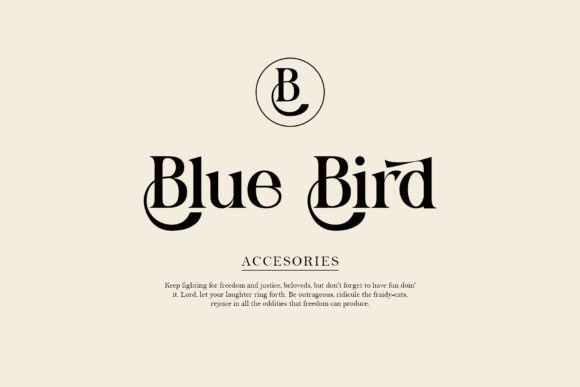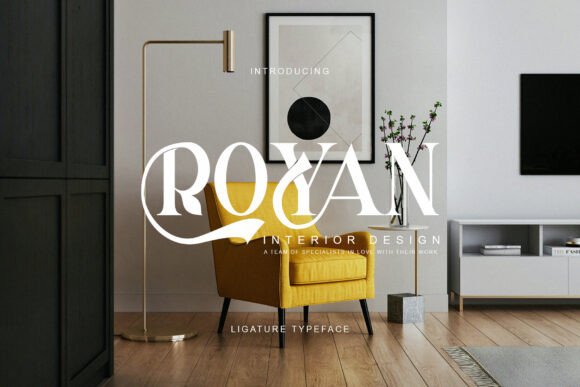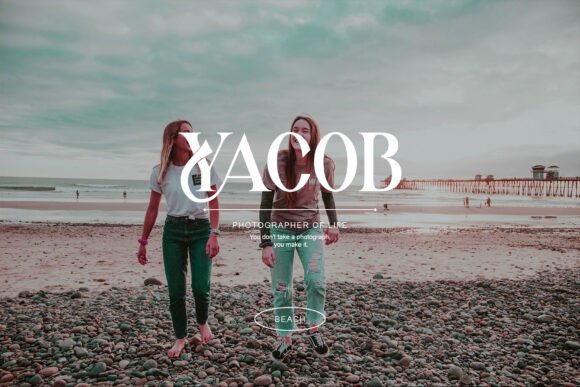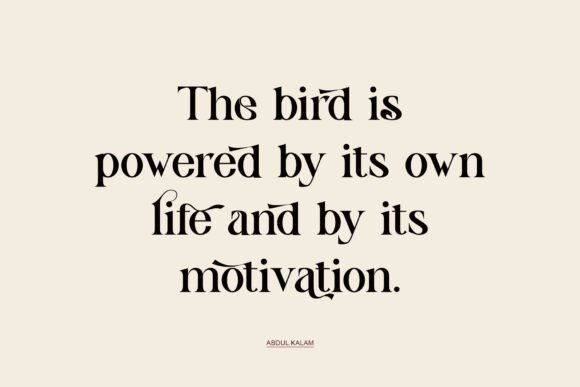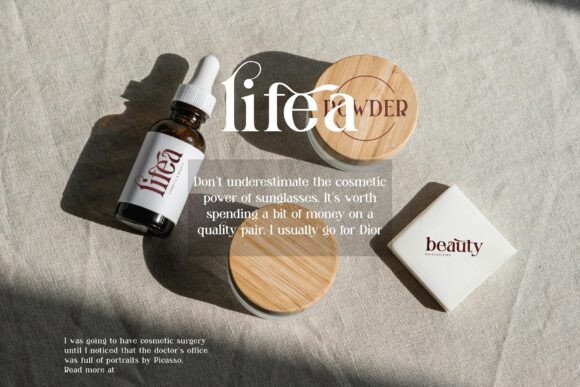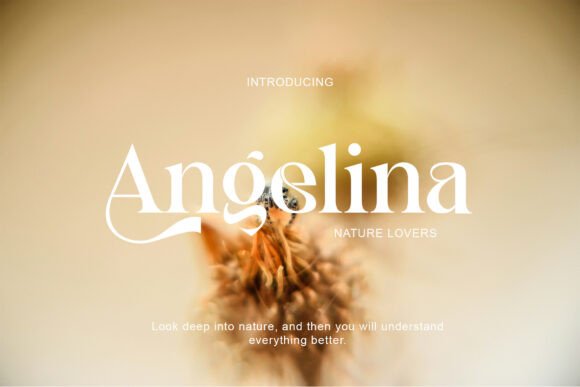
Introducing Blingh Font: Elevate Your Designs with Elegance and Class
In the world of typography, finding the perfect font that embodies both modernity and nostalgia can be a daunting task. However, for designers and crafters seeking a touch of elegance, stylishness, class, chic, and modernity in their creations, look no further than the Blingh Font. This exquisite serif typeface is meticulously designed to bring a sophisticated flair to any design project, making it an indispensable asset for professionals and hobbyists alike.
Blingh Font: A Perfect Blend of Modern and Nostalgic
Blingh Font stands out in the realm of typography due to its unique blend of modern and nostalgic elements. Its elegant and classy serif design ensures that it not only resonates with contemporary design trends but also pays homage to the timeless beauty of traditional typography. This versatility makes Blingh an excellent choice for a wide range of applications, from logos and magazines to social media graphics.
Designed for Versatility
One of the key advantages of Blingh Font is its versatility. It is already matched up and ready to be used together for your next design project, saving you time and effort in selecting complementary fonts. Whether you’re working on a logo that requires a distinctive yet approachable feel, a magazine that demands readability and sophistication, or social media content that needs to stand out in a crowded digital landscape, Blingh Font is up to the task.
Who is Blingh Font for?
Blingh Font is specifically created for individuals who need a touch of elegance, stylishness, class, chic, and modernity in their designs. This includes:
- Graphic Designers: Professionals looking for a reliable, high-quality font that can elevate their projects.
- Content Creators: Bloggers, social media influencers, and marketers seeking to enhance the visual appeal of their content.
- Crafters: DIY enthusiasts and crafters who want to add a professional touch to their handmade products and branding.
- Small Business Owners: Entrepreneurs aiming to establish a strong brand identity through distinctive and memorable typography.
Key Features of Blingh Font
Blingh Font comes with a range of features that make it an attractive option for designers and crafters:
- Elegant Serif Design: Offers a classic look with a modern twist.
- Versatility: Suitable for various design projects, including logos, magazines, and social media graphics.
- Pre-matched Font Pairings: Simplifies the design process by providing ready-to-use font combinations.
- Easy to Read: Ensures clarity and readability across different mediums.
| Font Name | Blingh Font |
| Author | yaqublekker |
Blingh Font is more than just a typeface; it’s a design solution for those seeking to infuse their projects with elegance, class, and modernity. Its versatility, paired with its aesthetic appeal, makes it an excellent addition to any designer’s or crafter’s toolkit. Whether you’re looking to create a lasting impression with a logo, convey sophistication through a magazine, or stand out on social media, Blingh Font is the perfect choice. Elevate your designs and make a statement with Blingh Font.